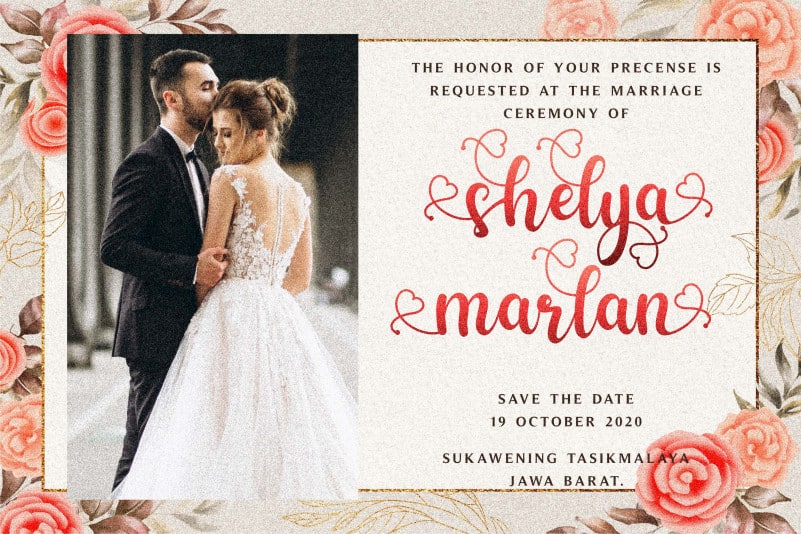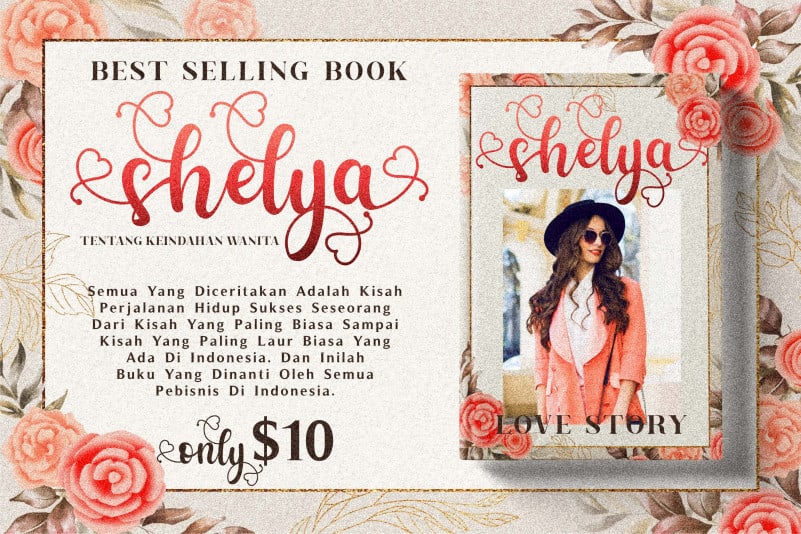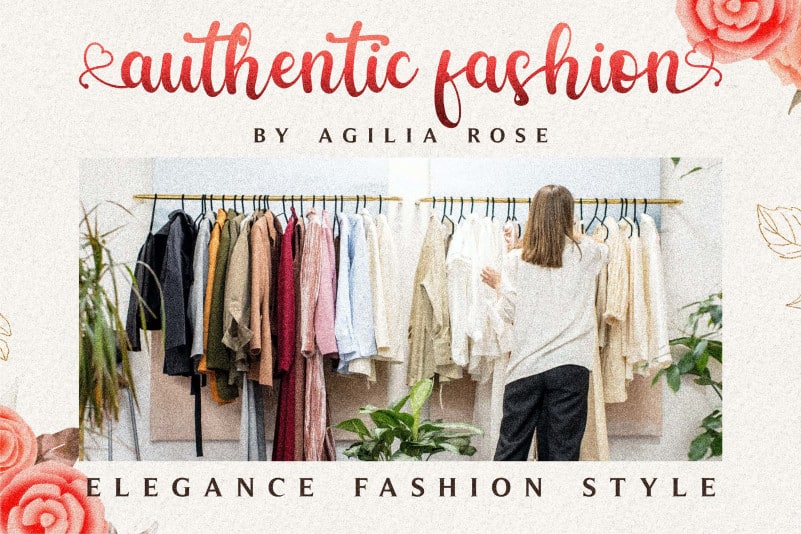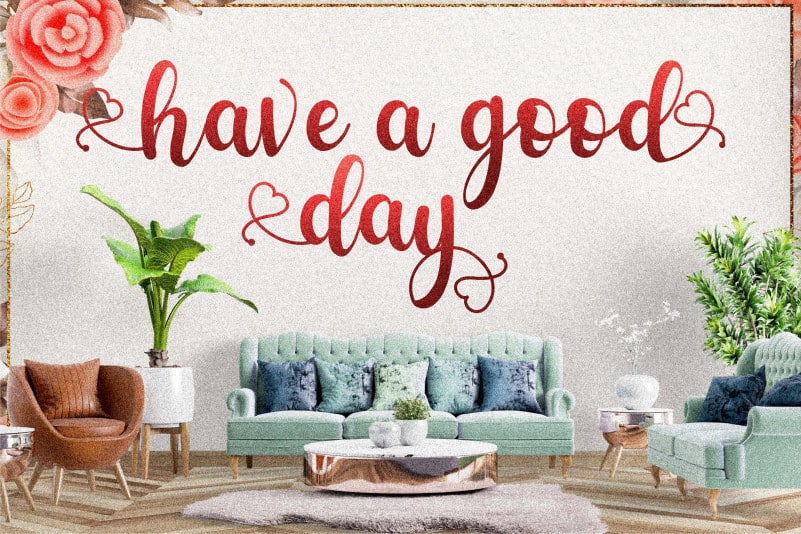
Shelya Calligraphy Font feels incredibly elegant and flowing. It looks stunning on wedding invitations, thank you cards, quotes, greeting cards, logos, business cards and every other design which needs a handwritten touch. It features a varying baseline, smooth lines, gorgeous glyphs and stunning alternates.